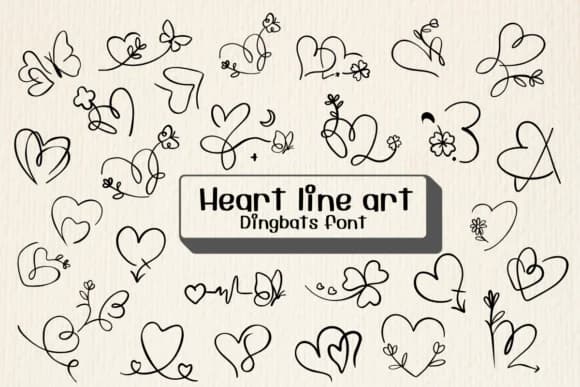
Heart Line Art by Ketsarin is a versatile line art dingbat font built entirely around heart motifs, offered in both single-line outline versions and filled styles. This collection works beautifully for wedding invitation suites, where you need sophisticated decorative elements that enhance rather than compete with text. Valentine's Day card designs benefit from the hand-drawn aesthetic, which reads as thoughtful and personal without feeling saccharine. Small businesses use it for Etsy product labels and craft packaging that need authentic handmade charm, while designers building brand identity systems appreciate its gentle, approachable visual language.
The line art structure gives you real control over how the hearts function in your designs. You can stack them for borders, stroke just the outlines for a clean look, fill them with solid colors or gradients, or layer them for multiple depths and visual interest. Digital artists working in Procreate and Affinity Designer treat these hearts as building blocks for larger compositions and illustrations.
Coloring pages and activity sheets for kids become more engaging and fun with varied heart shapes throughout. Print designers appreciate how well the font scales without losing definition across different sizes. These details make it equally suited to minimal logo designs or full brand identity systems. Get Heart Line Art from Creative Fabrica and add these hand-crafted hearts to your design toolkit.
Heart Line Art Font is a versatile dingbats font that works for both headings and body text. Pair it with a contrasting sans-serif or serif font to add visual interest and a clear distinction between titles and body copy.